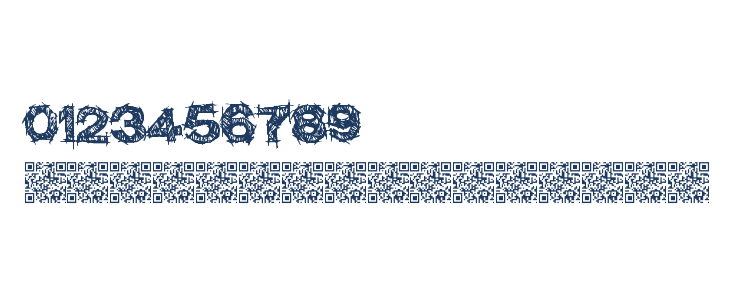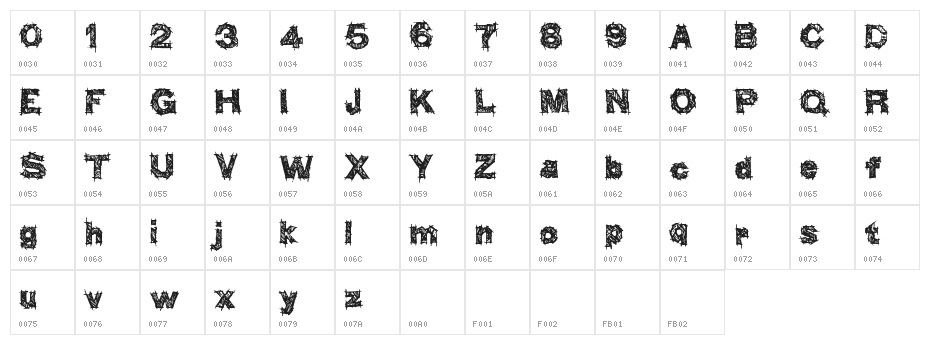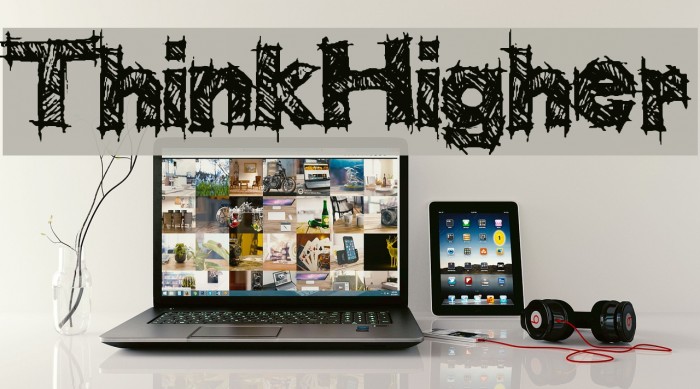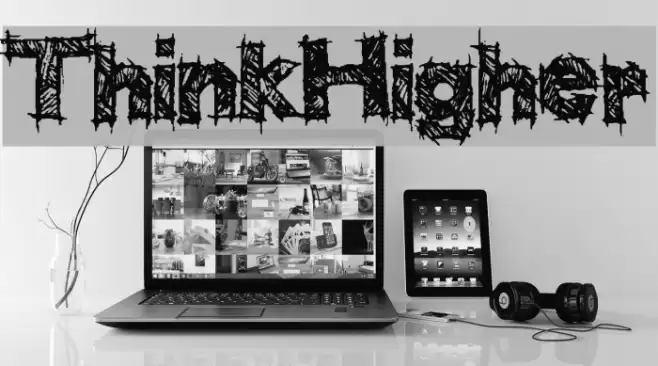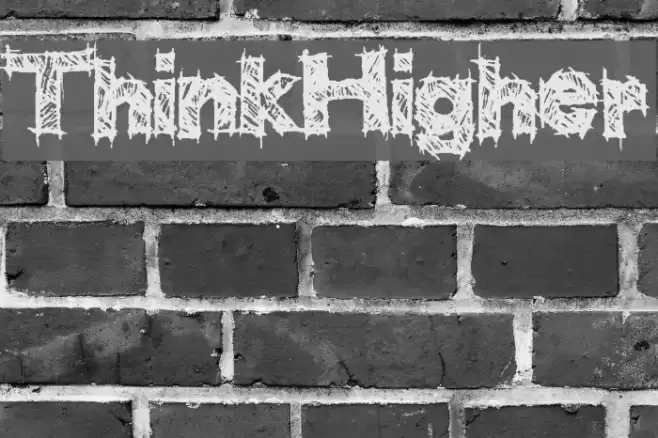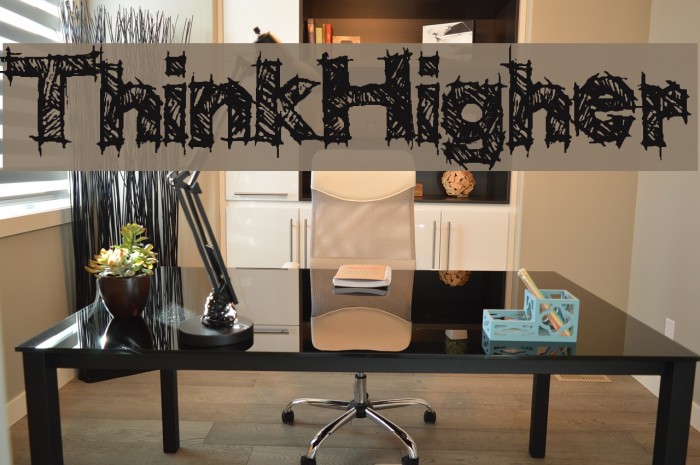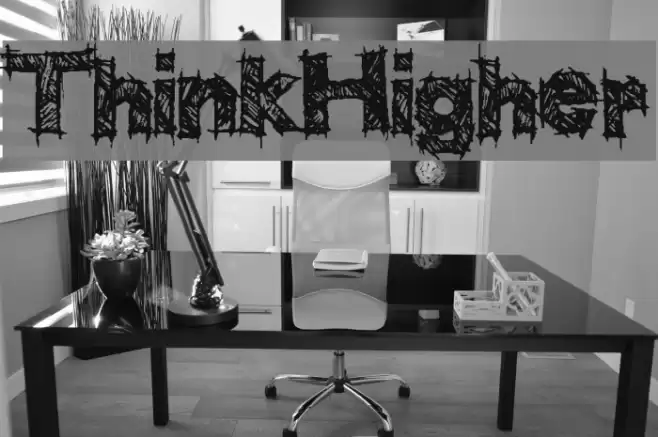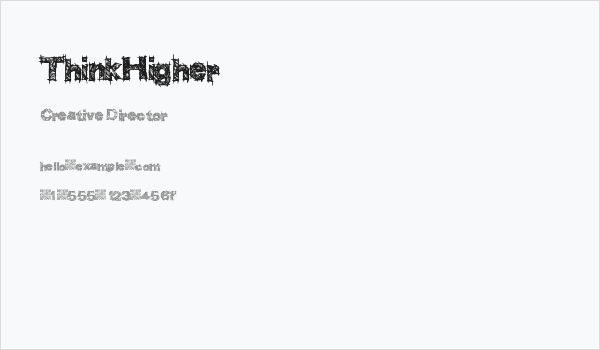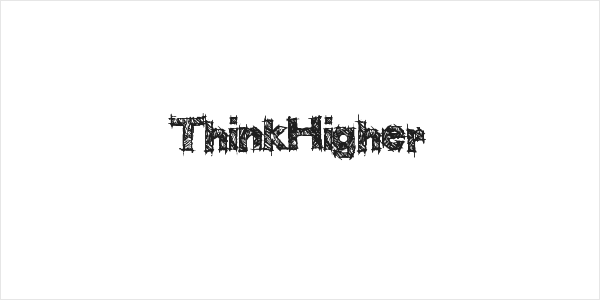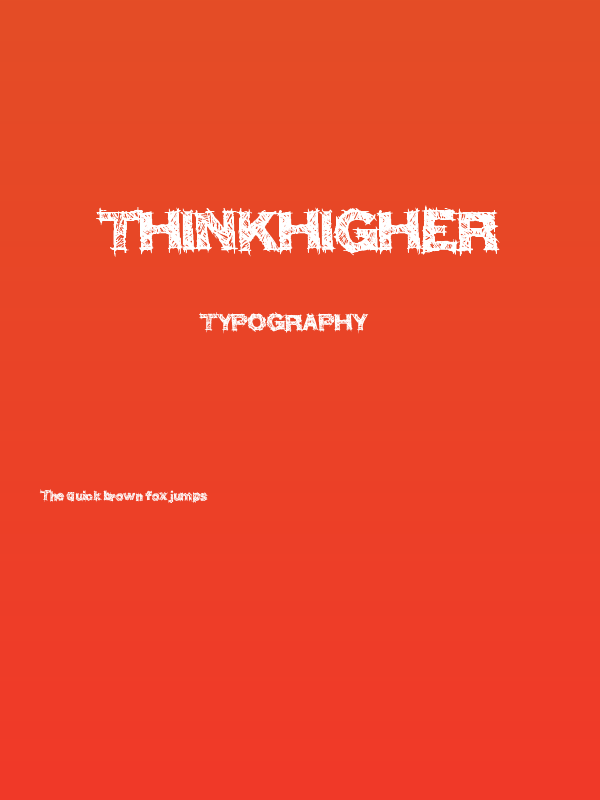
ThinkHigher Font
ThinkHigher Description
This font exhibits a highly decorative and chaotic style, reminiscent of tangled barbed wire or thorny vines. Each character is intricately detailed with sharp, jagged edges and irregular shapes, creating a sense of movement and intensity. The uppercase and lowercase letters maintain a consistent height, while the numbers and special characters follow the same intricate design. The overall appearance is bold and striking, making it ideal for projects that require a dramatic and edgy aesthetic.
| Proposed Projects | Ideal for album covers, horror-themed posters, edgy branding, or any project requiring a dramatic and intense visual impact. |